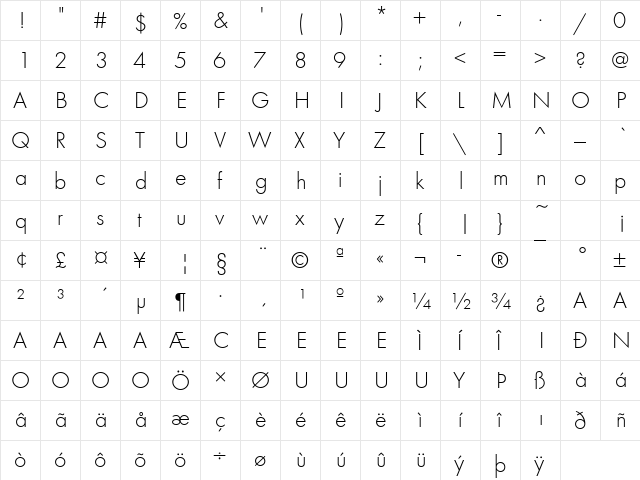
Futura T Light Regular
Futura T Light has a distinctly futuristic character, with geometric precision and clean angles that feel at home in technology, gaming, and sci-fi contexts. The delicate stroke weight brings airiness and refinement to layouts.
Pro Tip: Try Futura T Light with generous letter-spacing in UI labels and navigation — the geometric forms benefit from room to breathe.